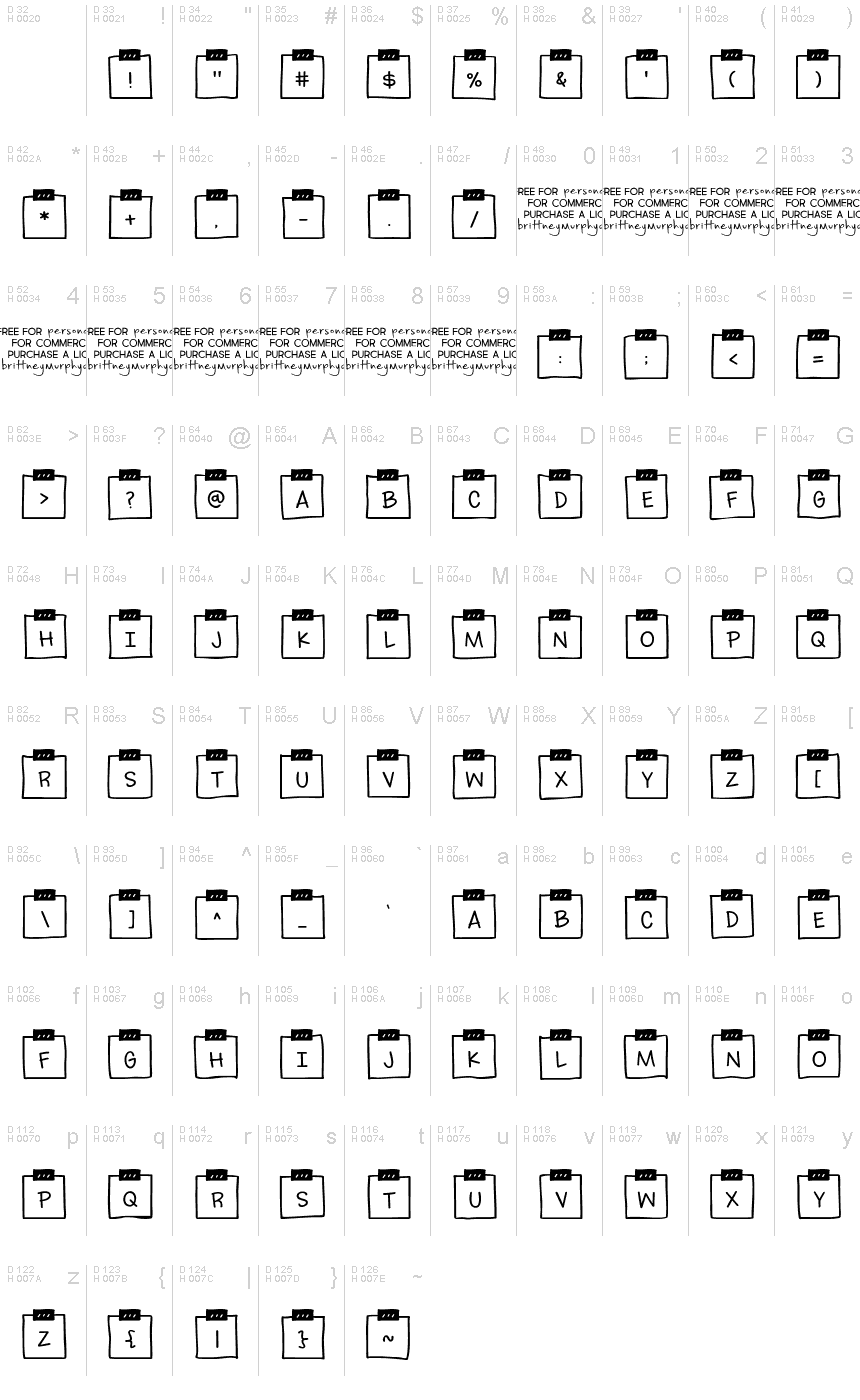
Sticky Memos Demo Two
Introducing Sticky Memos Demo Two - the perfect font for adding a playful touch to your designs! Created by Brittney Murphy Design, this display font features a light weight and decorative style that's sure to grab attention. Its unique design resembles handwritten notes on sticky memos, making it ideal for projects that require a fun and informal look. Use it for creating eye-catching logos, posters, or social media graphics. With Sticky Memos Demo Two, you can add personality and flair to any project!
The Sticky Memos font family is a cute sticky note font in three styles: regular (sticky notes with tape), two (sticky notes with tape filled in), and plain (sticky notes with no tape). Use it to add some fun to your worksheets and planners!
Font contains over 300 characters and supports most Latin-based languages.